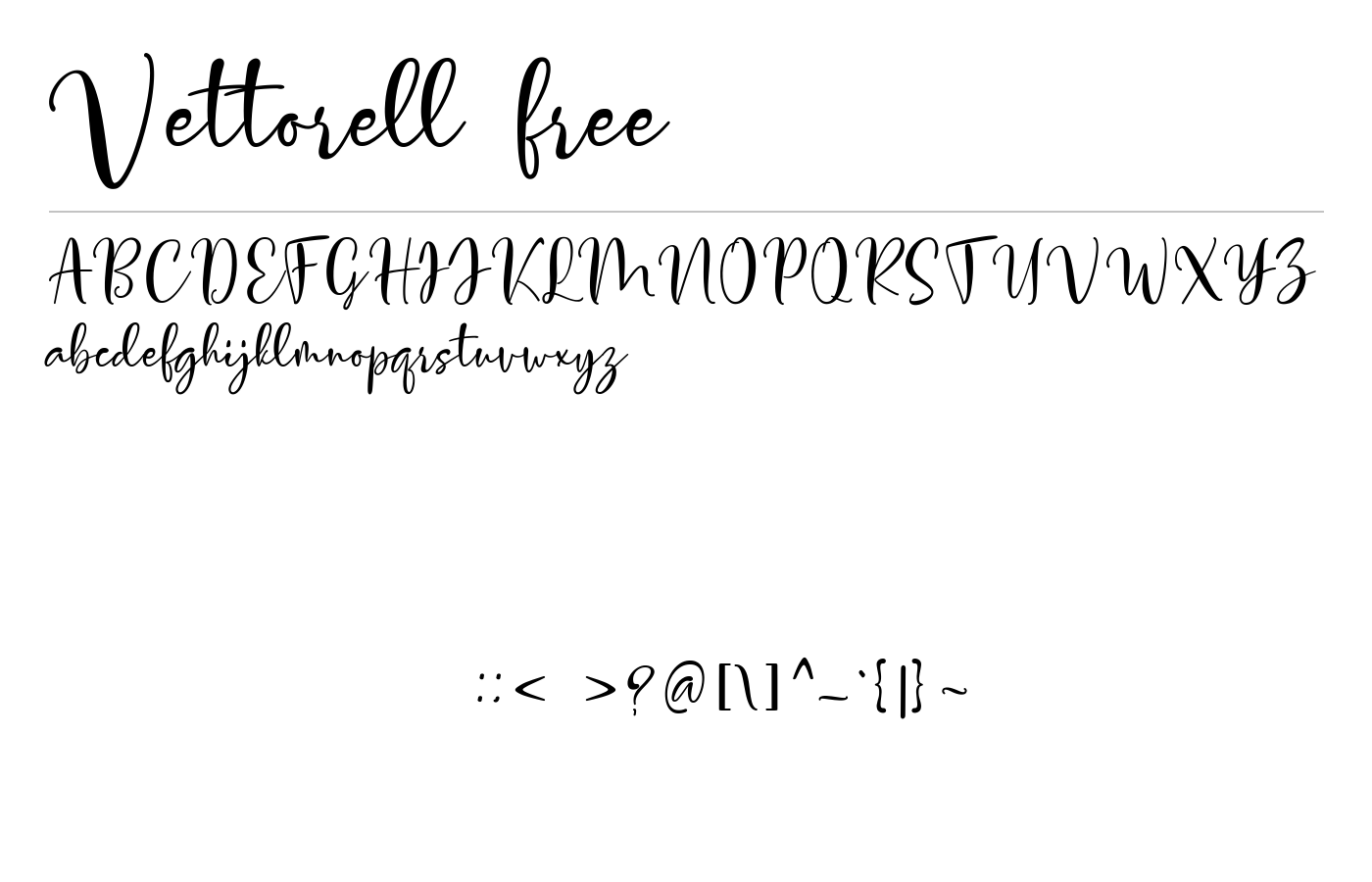
Vettorell Script is a delicate and flowing handwritten font with a casual yet elegant personality. Its slender strokes and natural curves create a charming, friendly feel, making it perfect for invitations, branding, and creative projects that need a personal, stylish touch. This font works well in both display and short text uses where a graceful, approachable look is desired.
Vettorell Script Font
About Vettorell Script Font